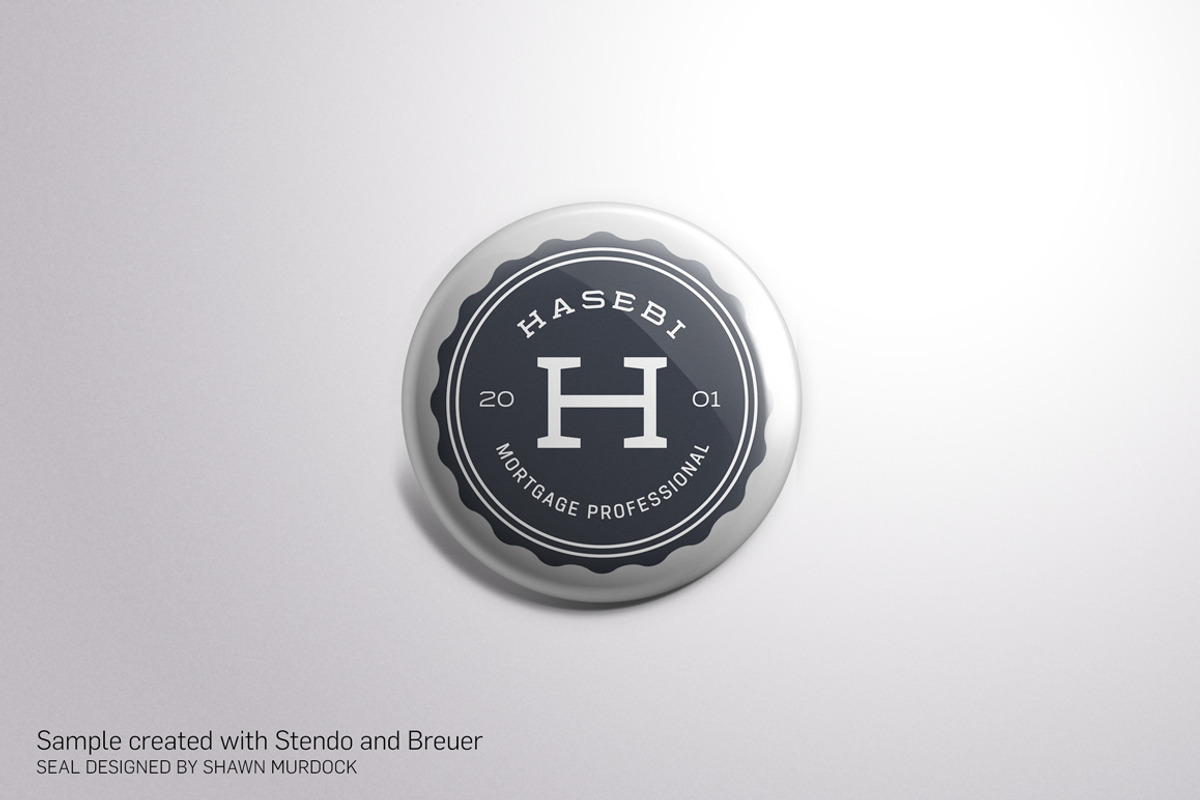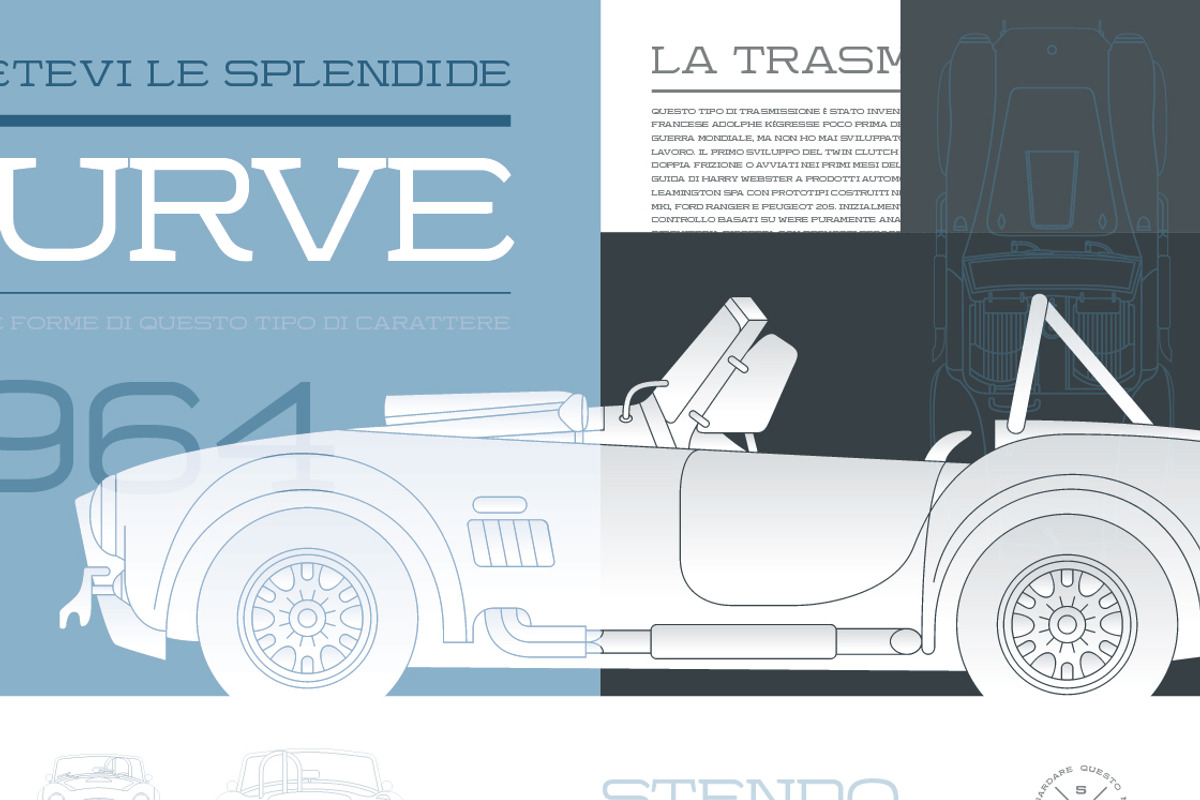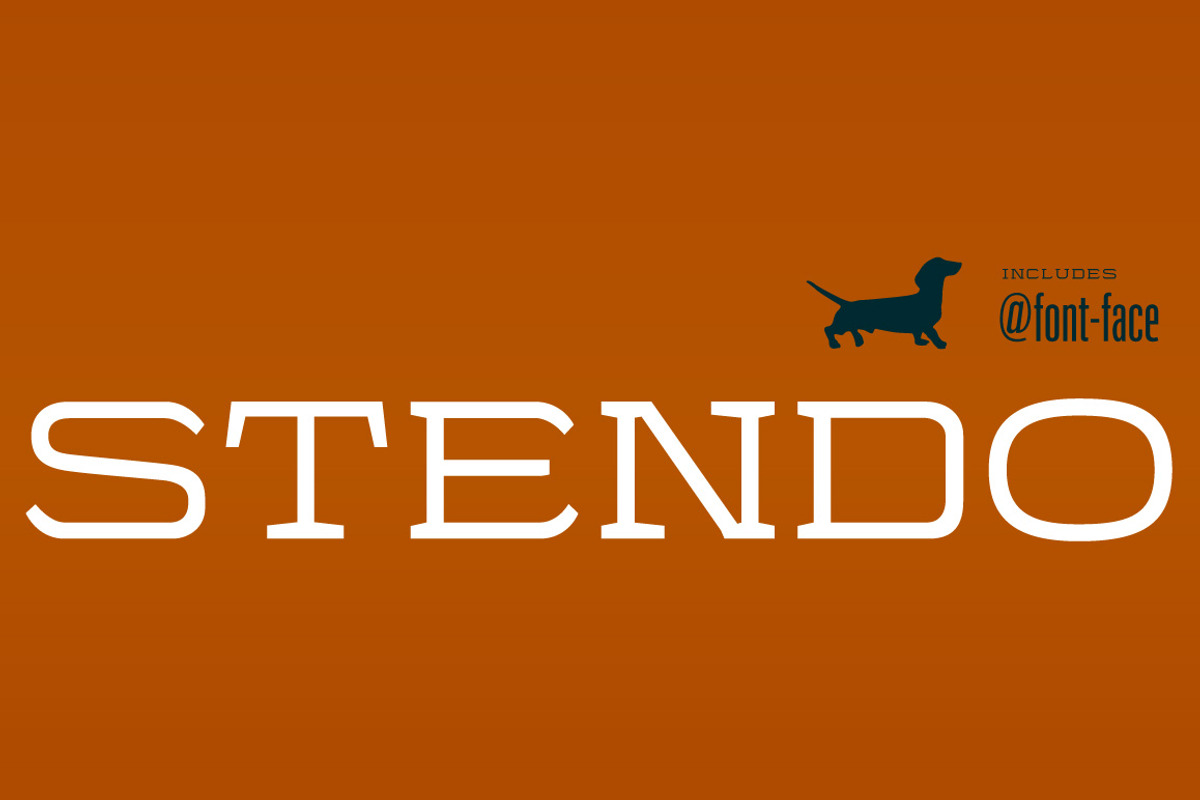
Stendo Extended Regular - Wide Font
Stendo Extended Regular - Wide Font by Stypeface is a font selected for branding, posters, packaging, typography.
- Now with Russian, French, Portuguese, Spanish, and German support, updated kerning and stylistic alternates!
Why Stendo Extended Regular - Wide Font is worth a look
Stendo Extended Regular - Wide Font by Stypeface fits naturally into Branding, posters, packaging, typography.